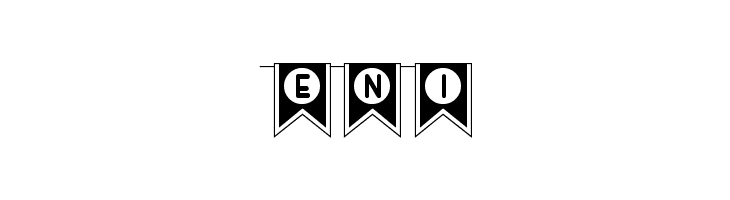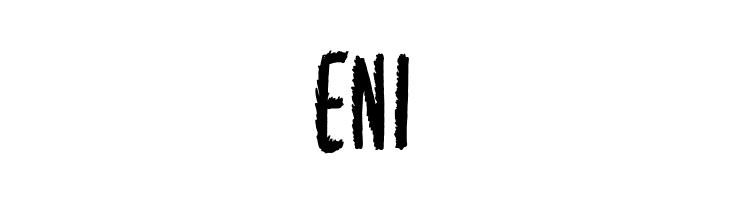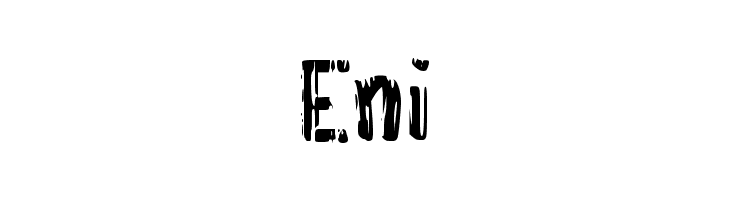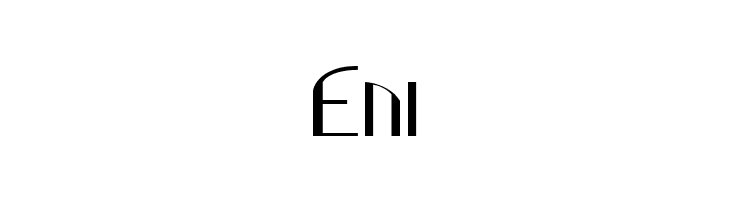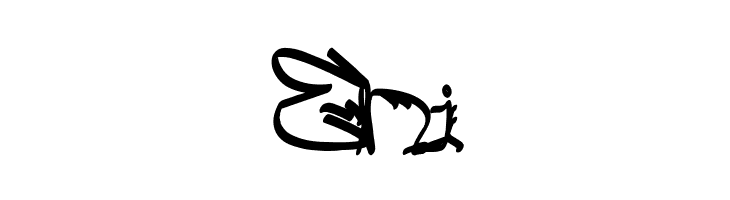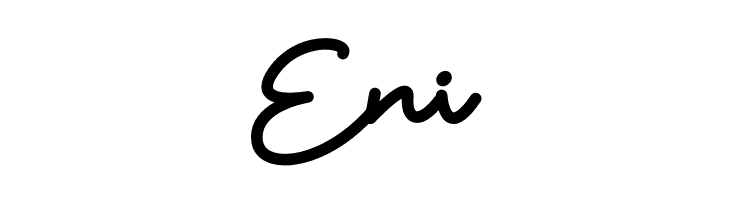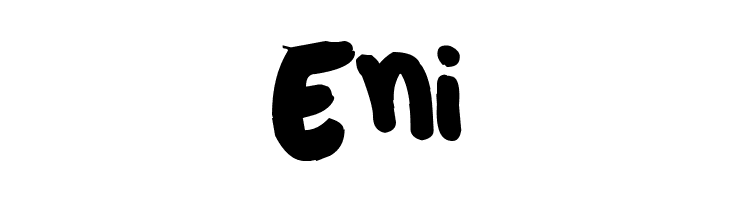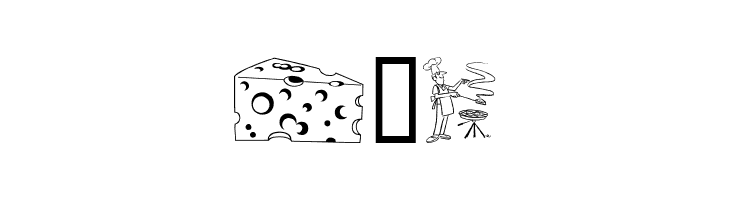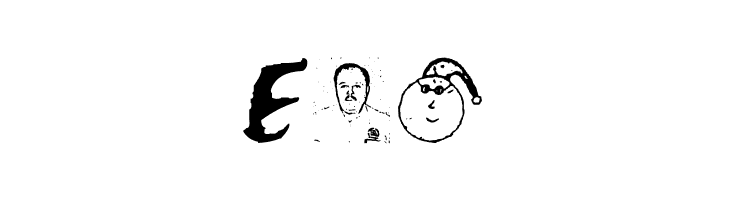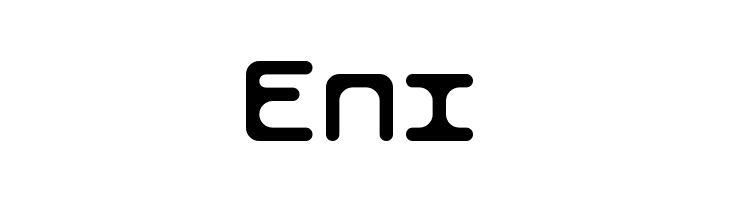
A bold, 3D cube font with a playful and modern geometric style.
A dot-matrix style font with a digital, LED display appearance.
A bold, playful handwritten font with smooth curves and a whimsical style.
A playful and whimsical font with rounded, curly elements and a lively appearance.
A bold, textured font with a rugged, icy appearance.
A whimsical, hand-drawn font with irregular, dynamic strokes.
A bold, playful handwritten font with rounded strokes and a whimsical style.
A playful, hand-drawn font with a whimsical and casual style.
A playful, hand-drawn font with bold, textured strokes and a whimsical style.
A playful, bold handwritten font with a whimsical charm.
A playful font with stick figures holding each character, adding a whimsical touch.
A playful, handwritten-style font with bold, rounded strokes.
A bold, geometric font with a modern and technical appearance.
A bold, blocky font with a hand-crafted, modern rustic style.
A graffiti-inspired font with bold, sweeping strokes and intricate detailing.
A decorative font with bold characters in patterned flag-like banners.
A bold, distressed font with a hand-painted, textured appearance.
A bold, textured font with a frosty, distressed appearance.
A bold, outlined font with a playful, retro comic book style.
A bold, hand-drawn font with a textured, playful style.
A bold, textured font with a hand-drawn, playful style.
A bold, textured, hand-drawn font with a playful and artistic style.
A bold, hand-drawn font with a playful and energetic style.
Food-themed dingbat font with detailed culinary illustrations.
A playful, handwritten font with bold strokes and a casual style.
A classic serif font with elegant, elongated letterforms and pronounced serifs.